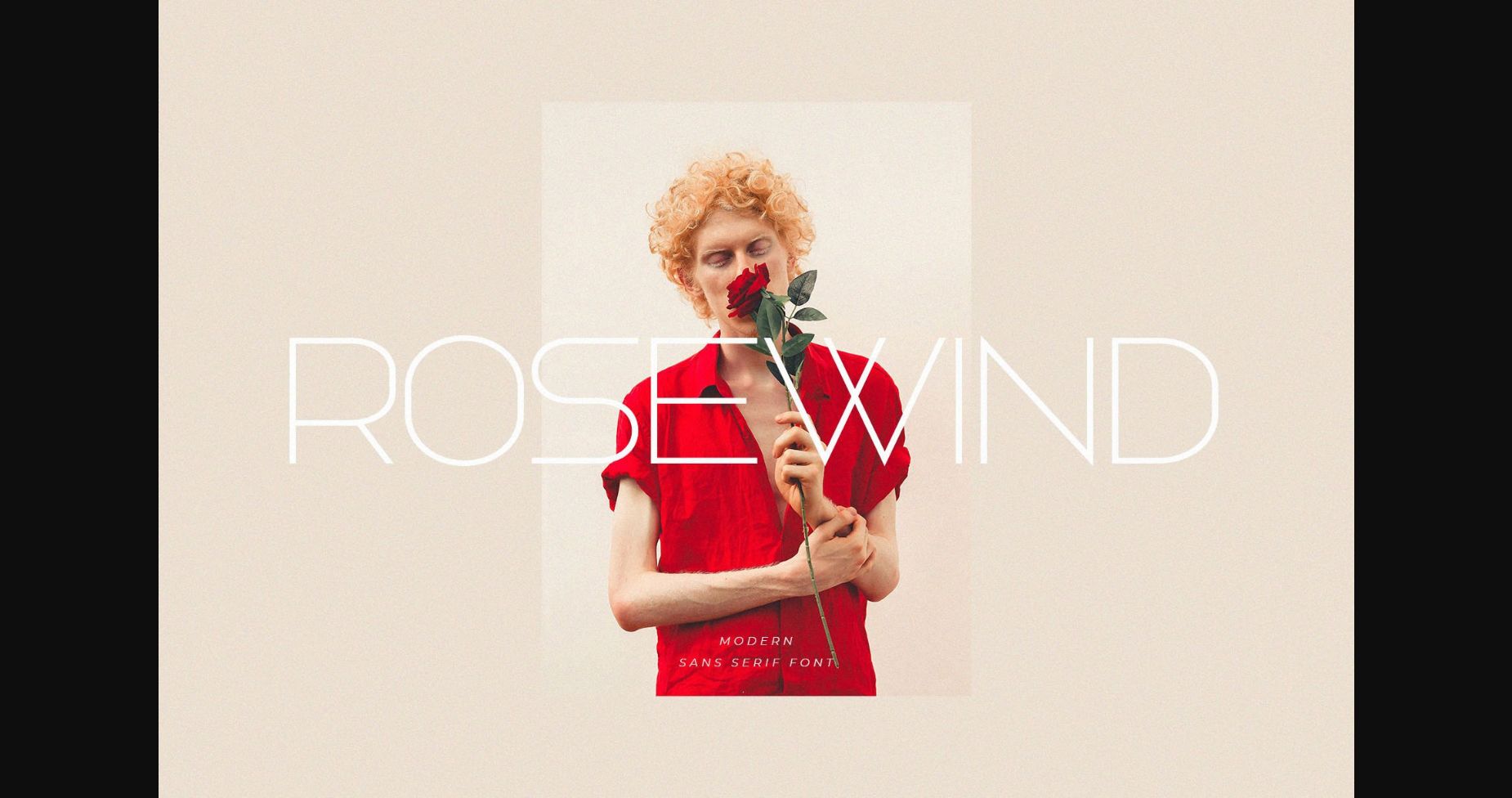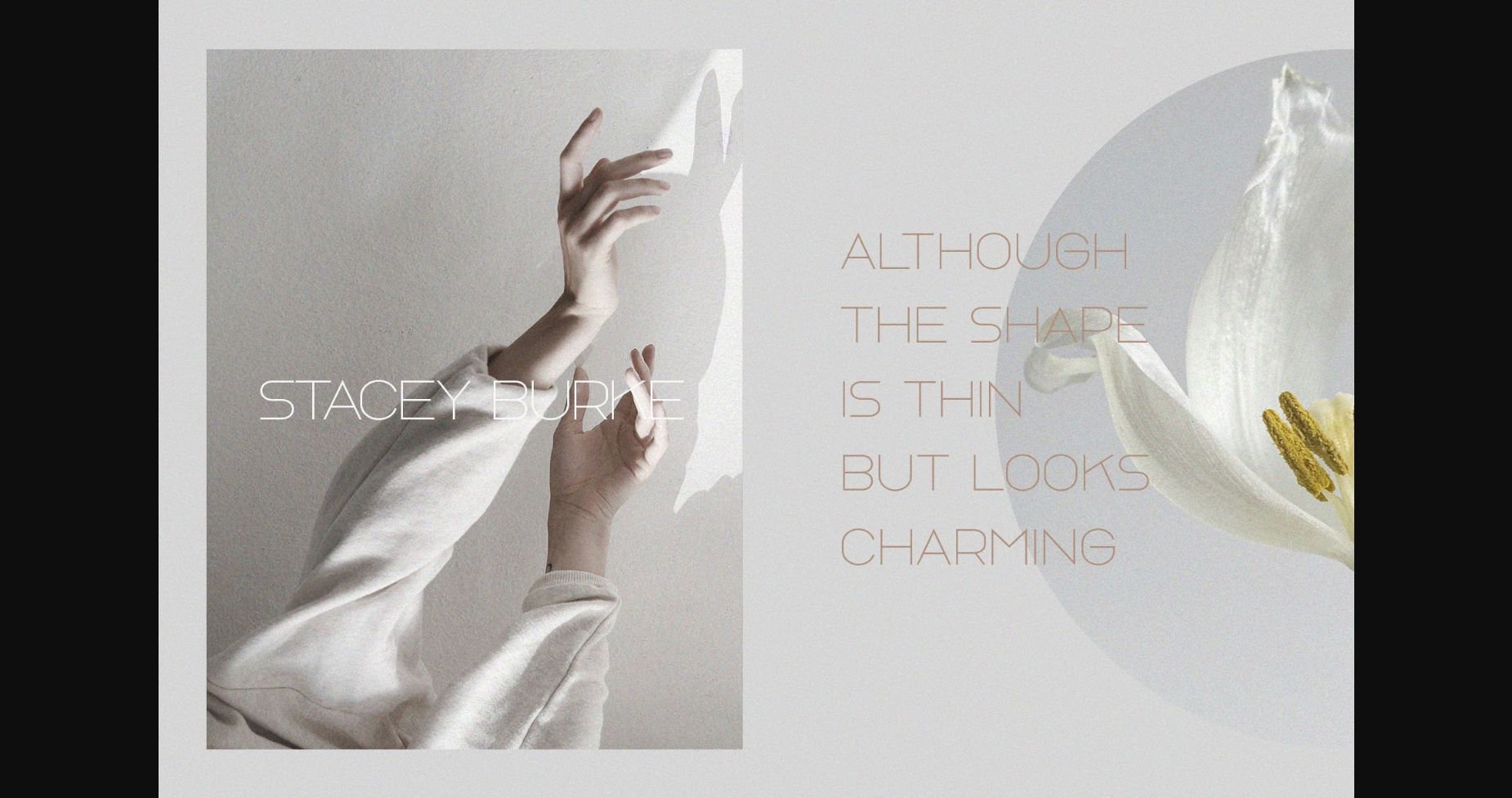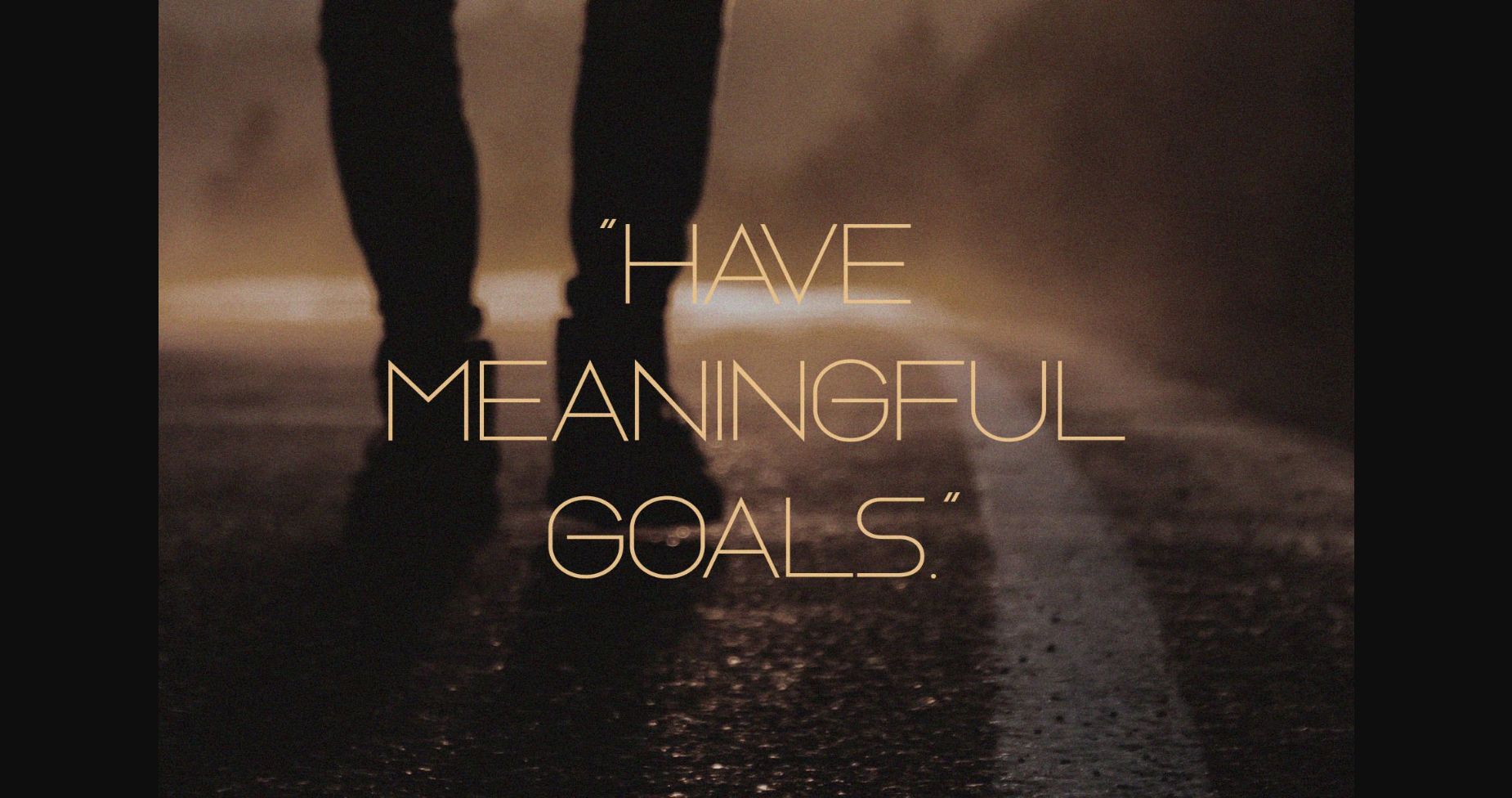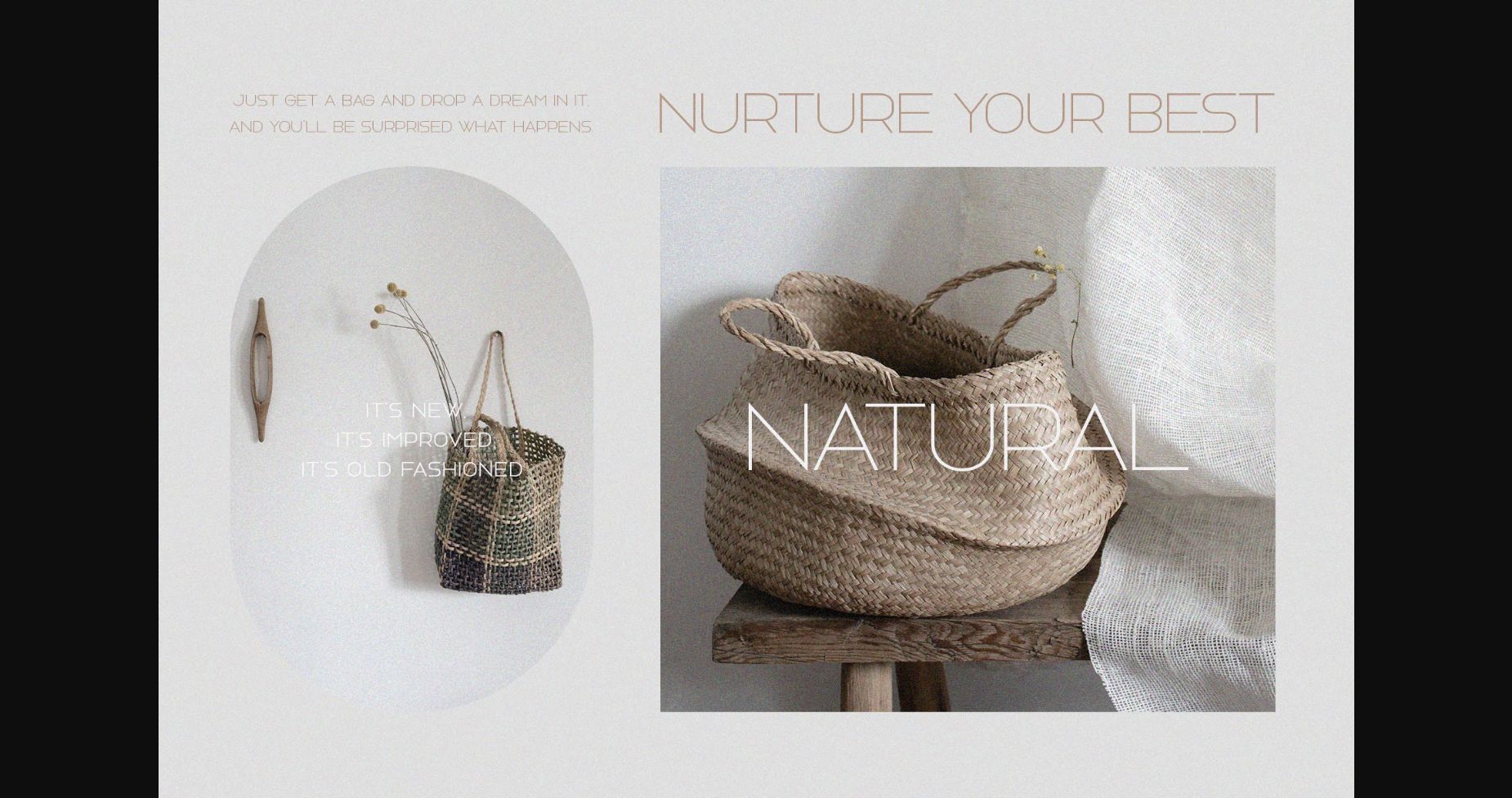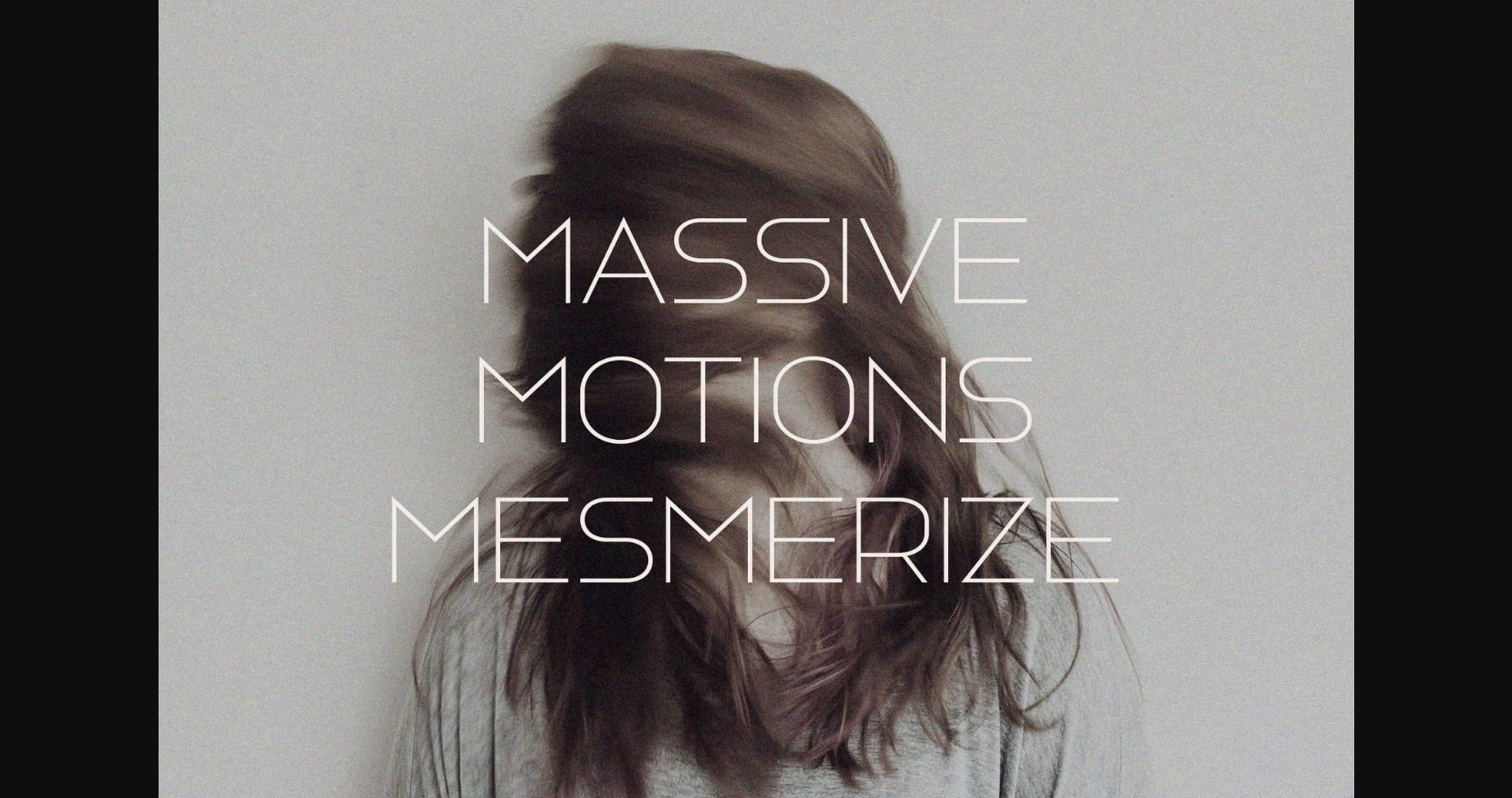
Rosewind Font
About Rosewind Font
Rosewind is a modern and elegant sans serif font. Fall in love with its incredibly distinct and timeless style and use it to create spectacular designs!